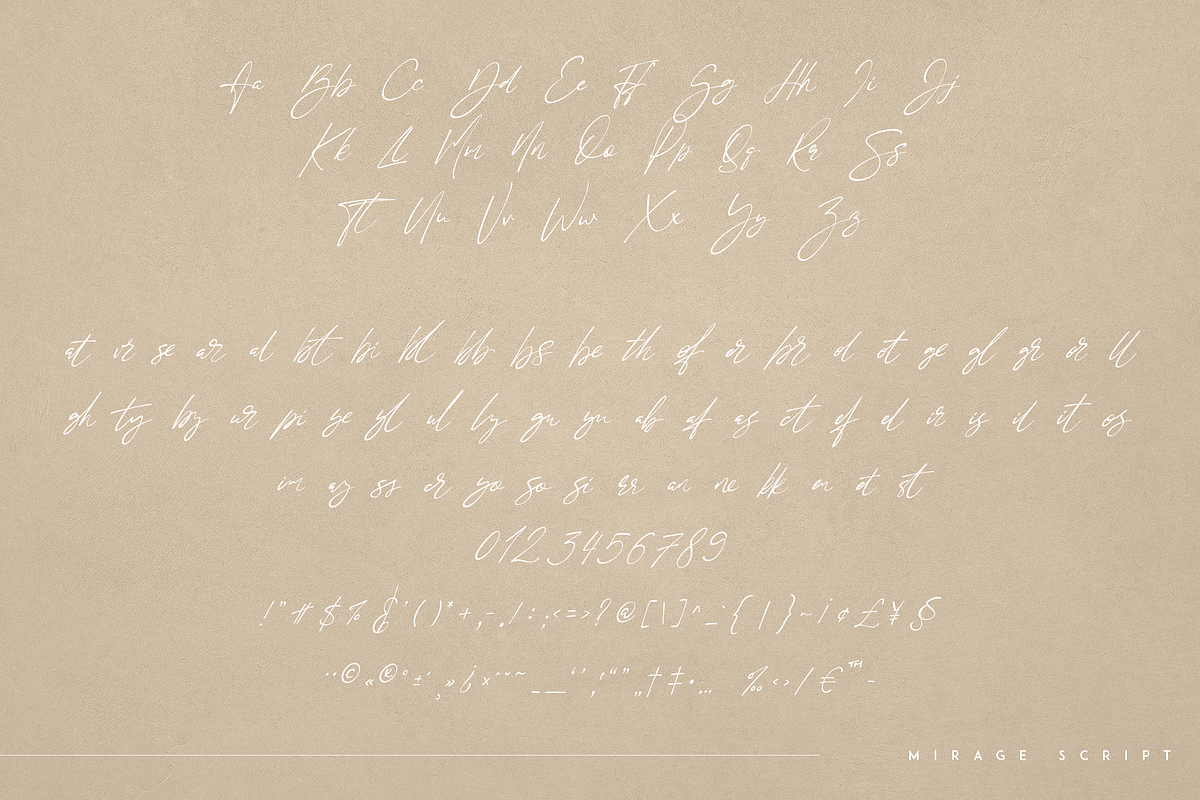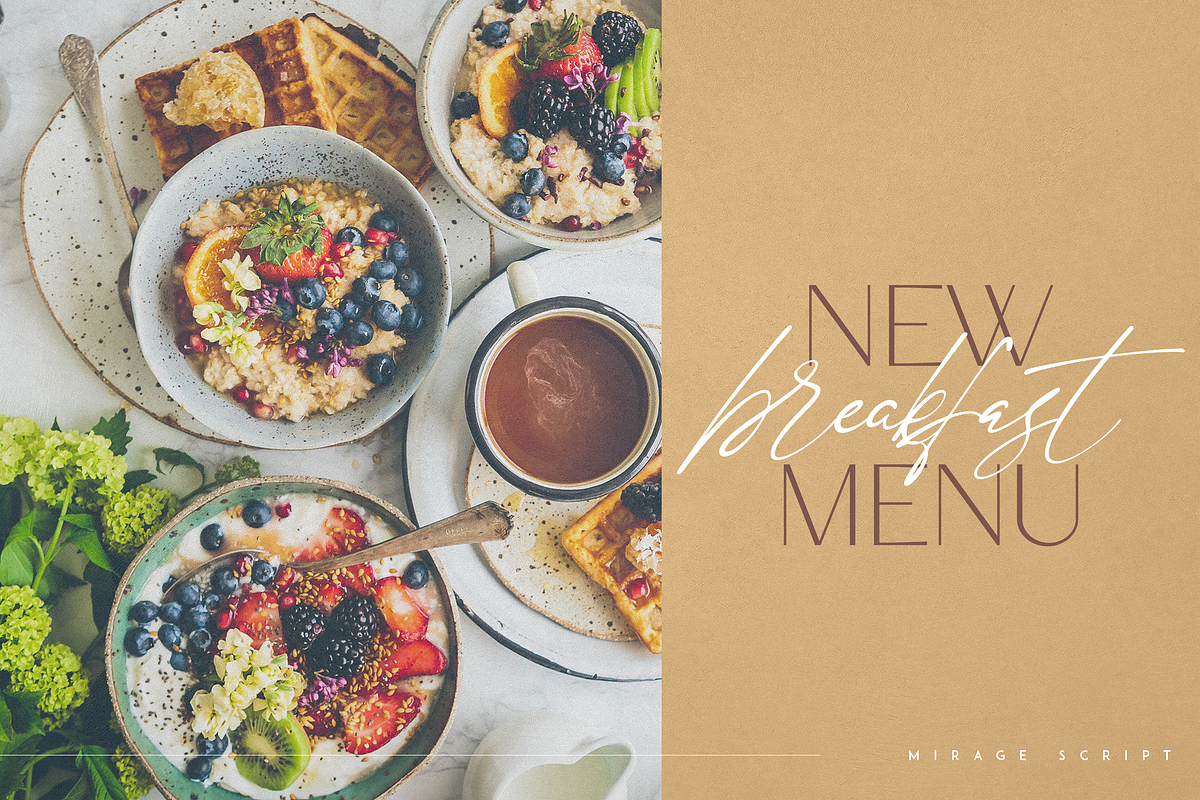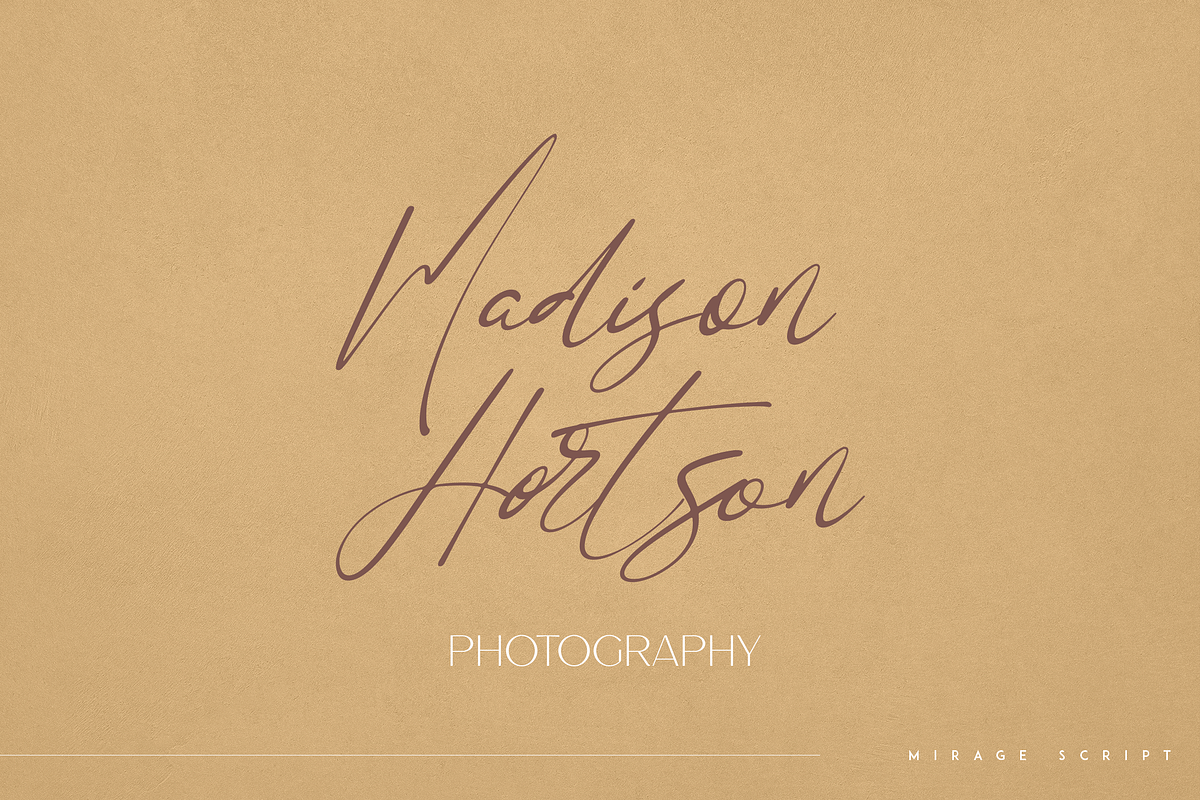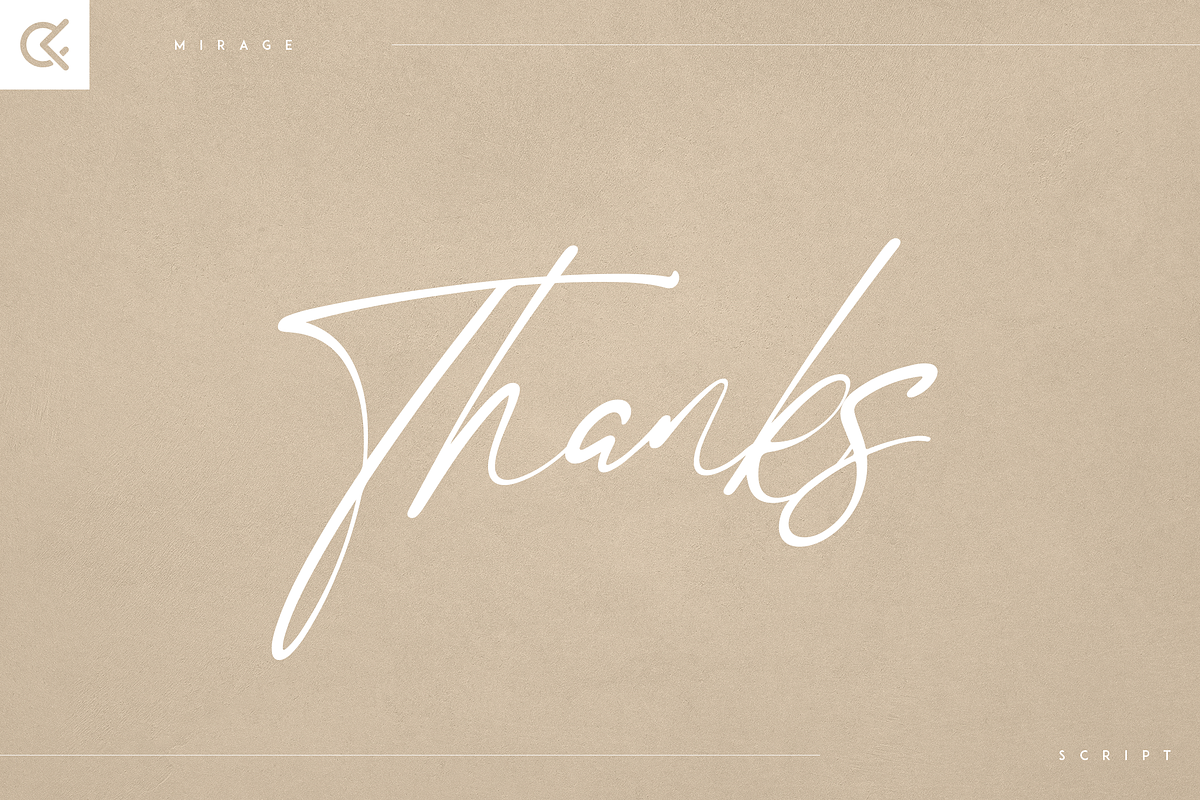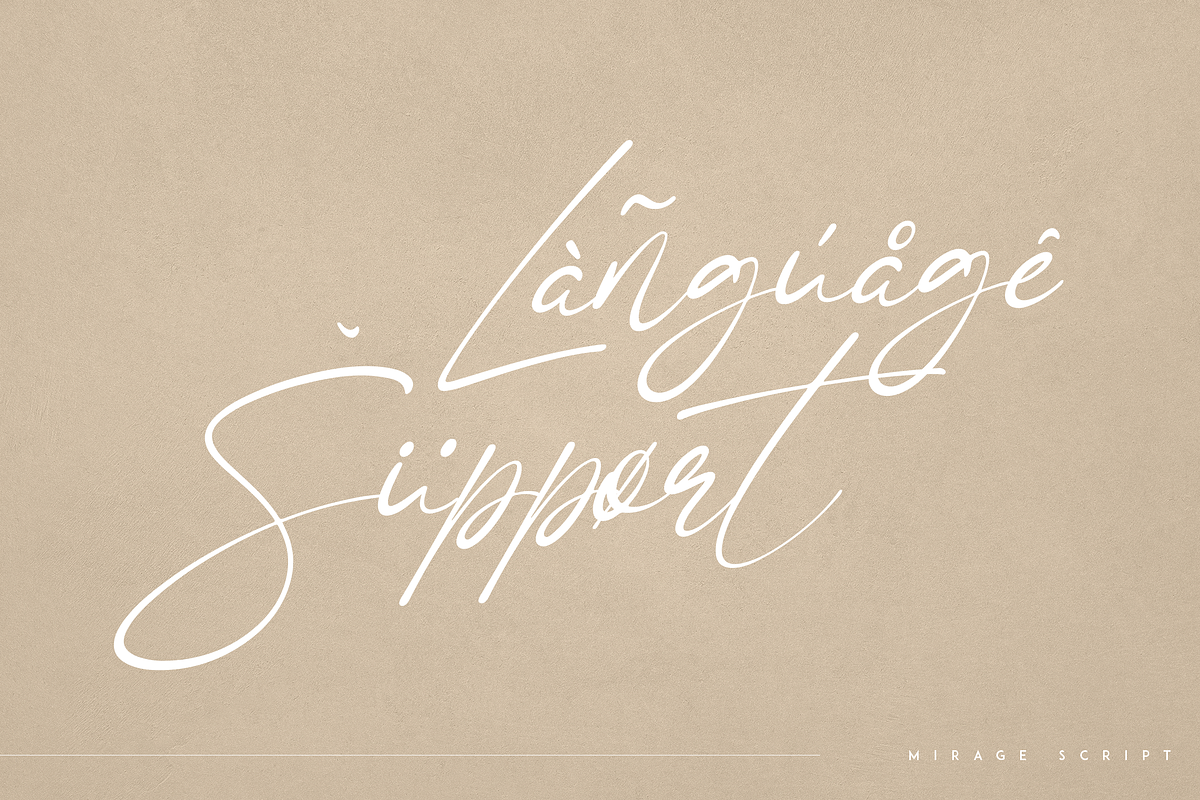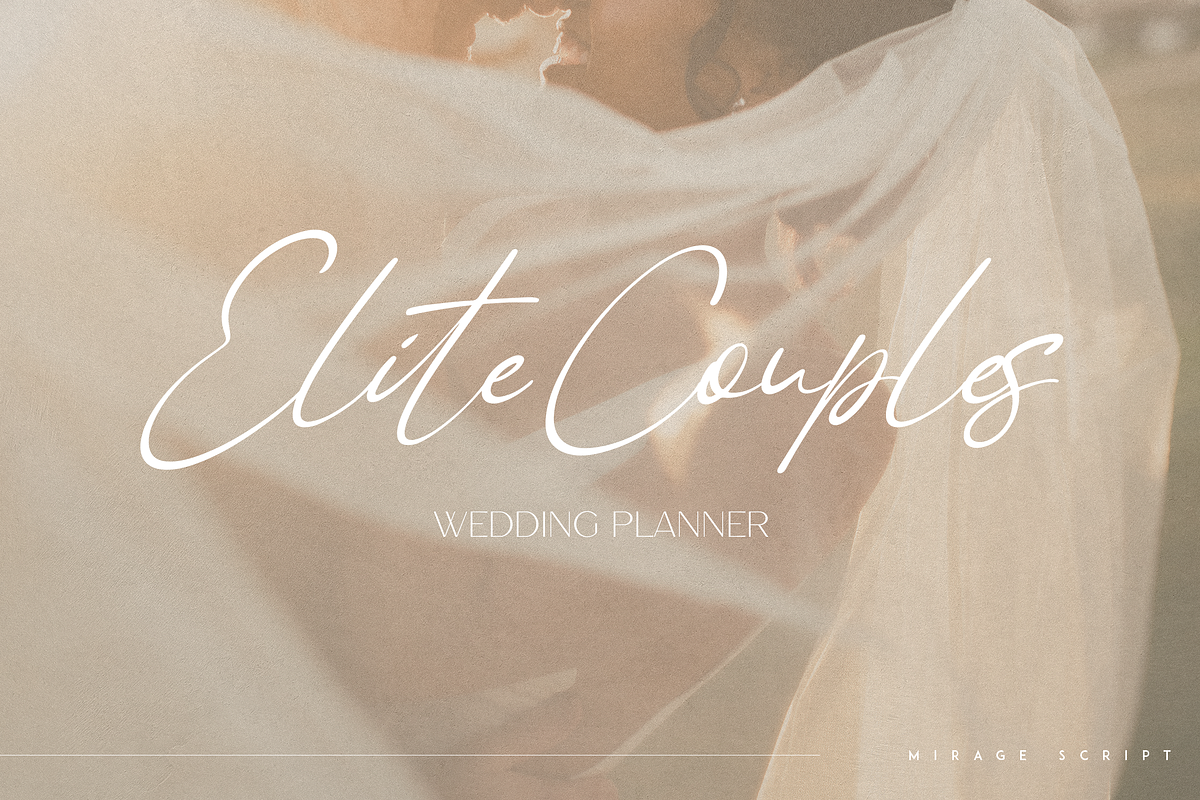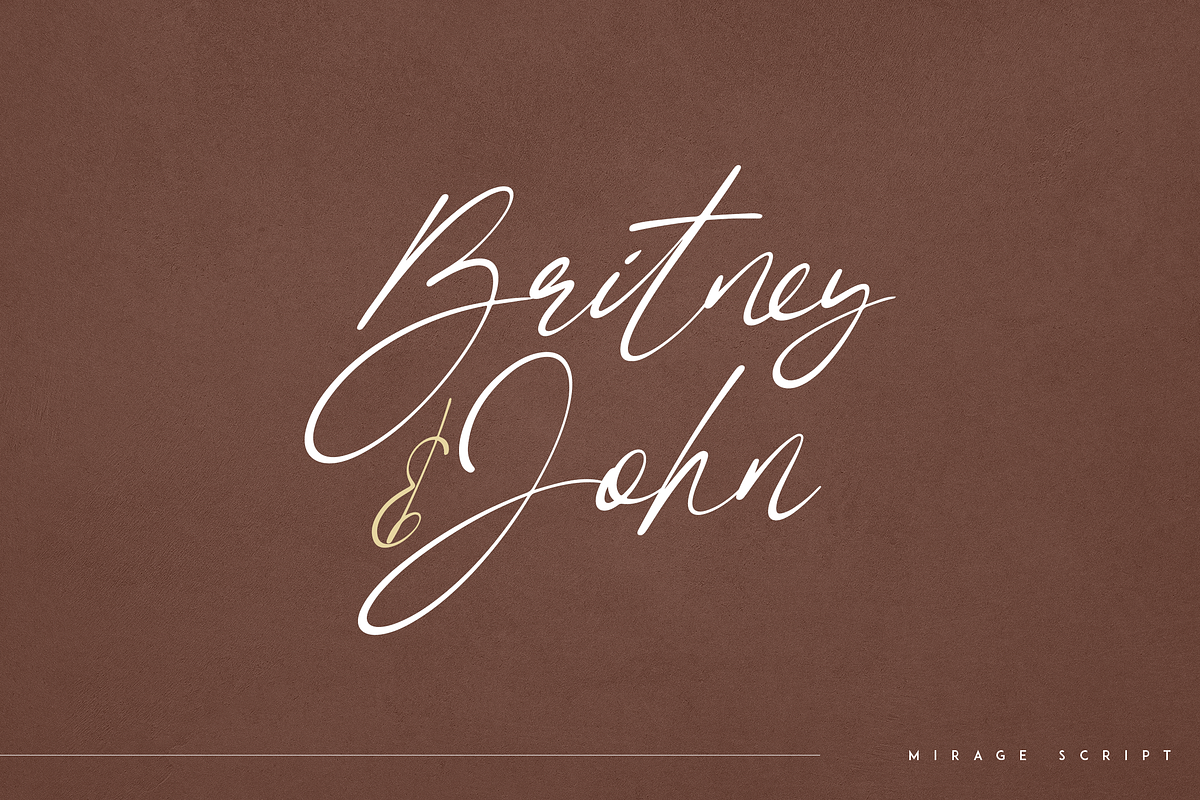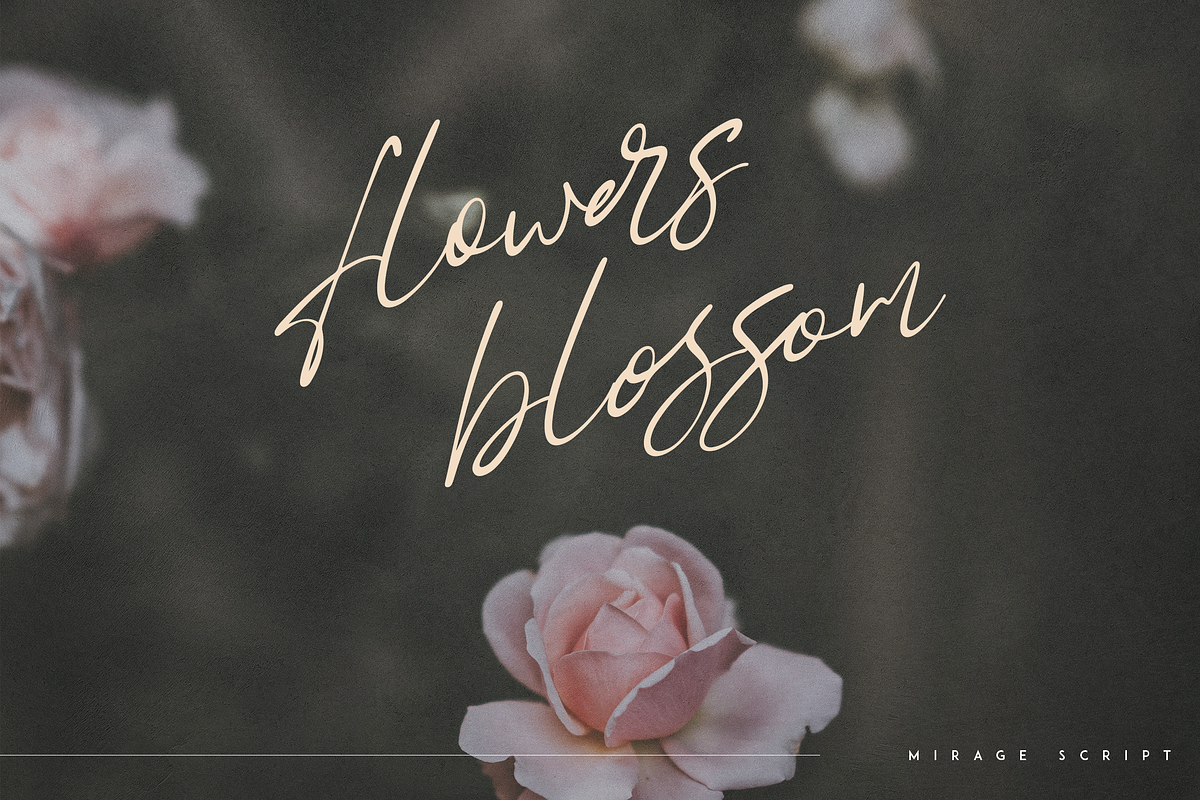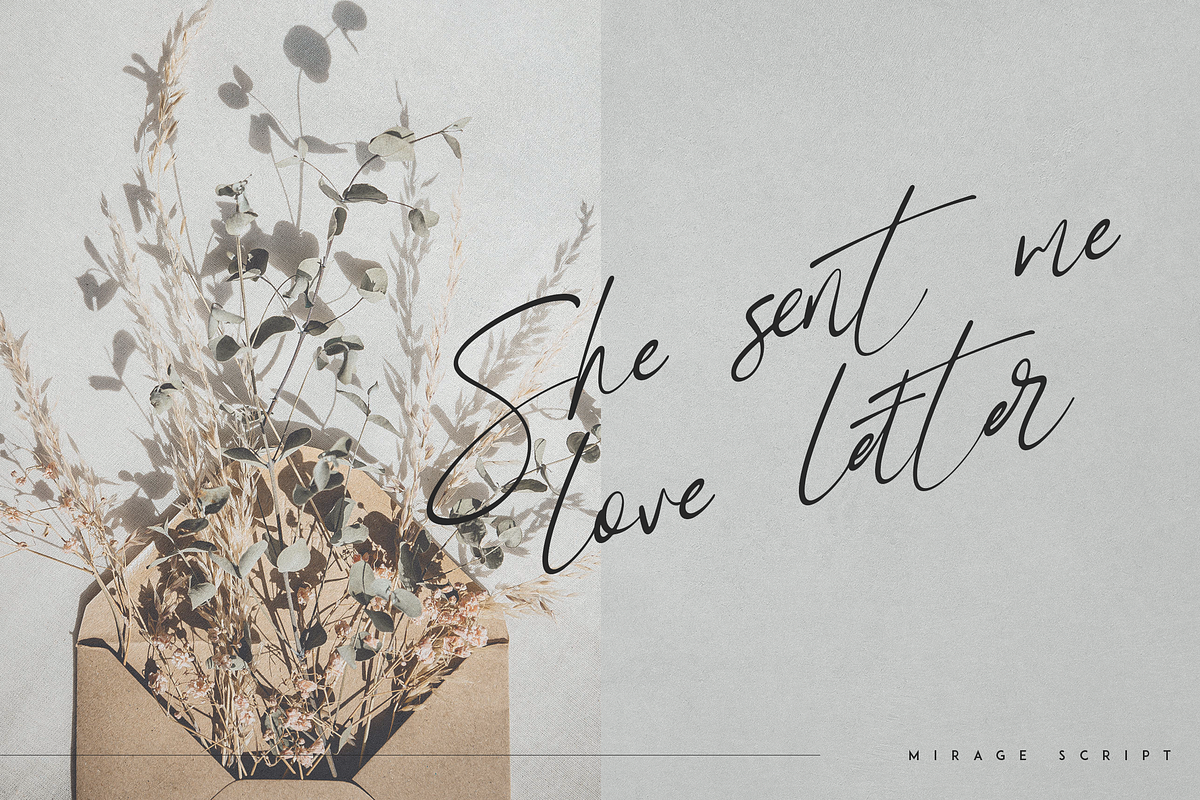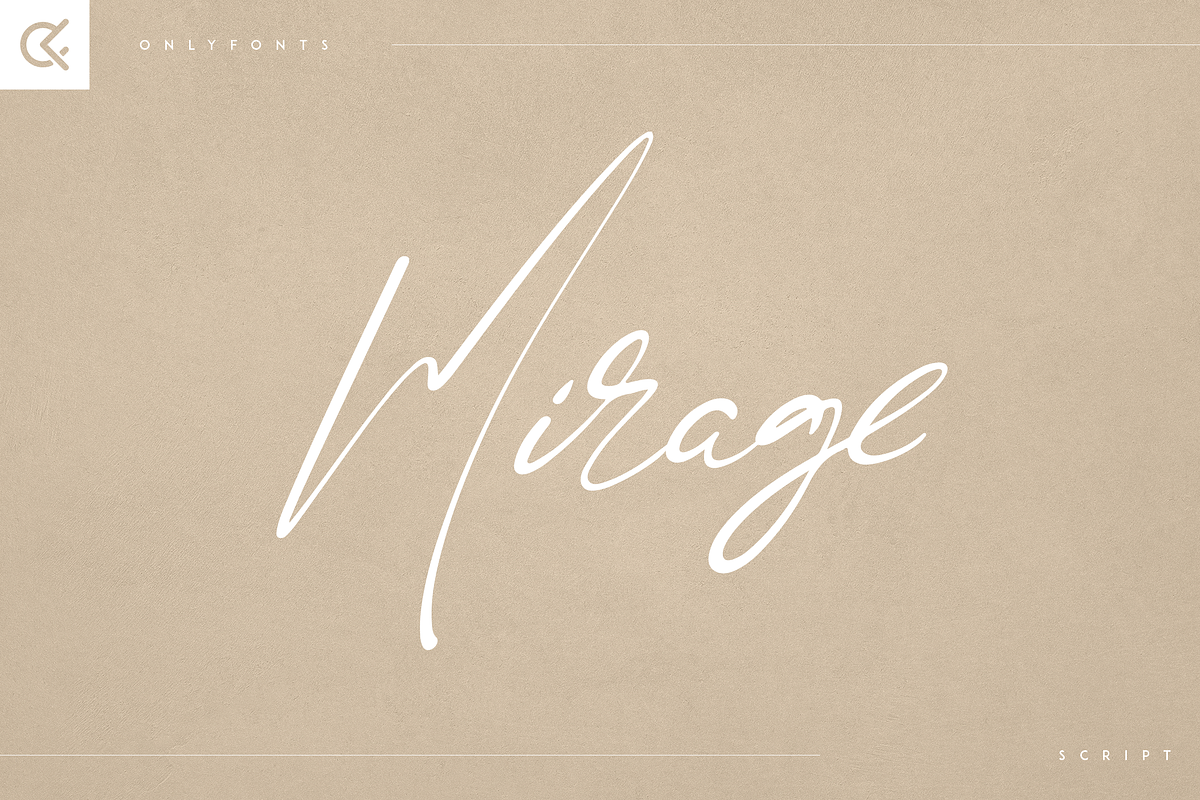
Mirage - creative script font
Introducing Mirage - creative script
Mirage is organic and creative script loaded with ligature glyphs and multilingual support. It's a very versatile font that works great in large and small sizes.
This font is perfect for branding projects, home-ware designs, product packaging, magazine headers - or simply as a stylish text overlay to any background image.
- Uppercase, lowercase, numeral, punctuation & Symbol
- ligature glyphs